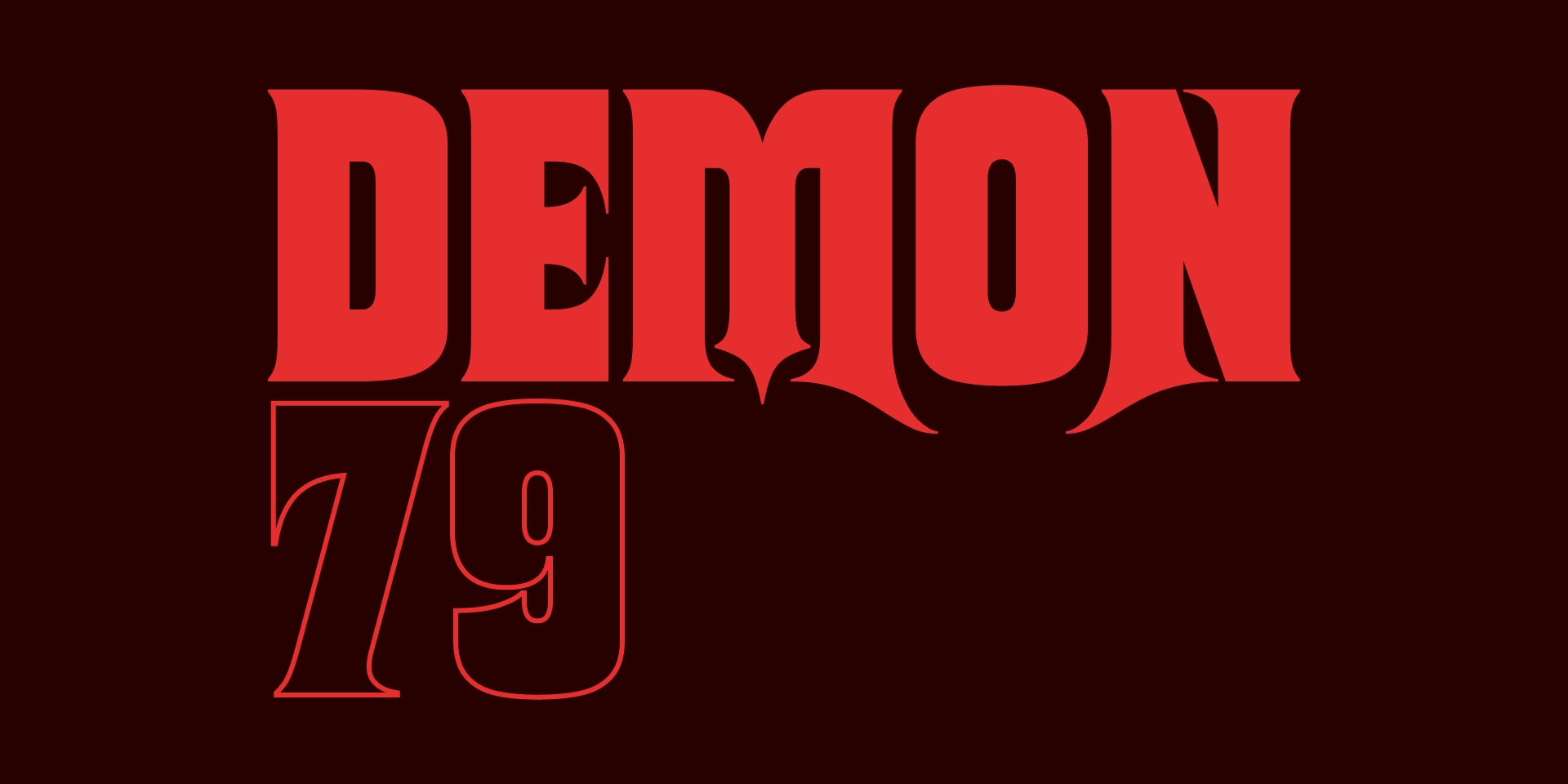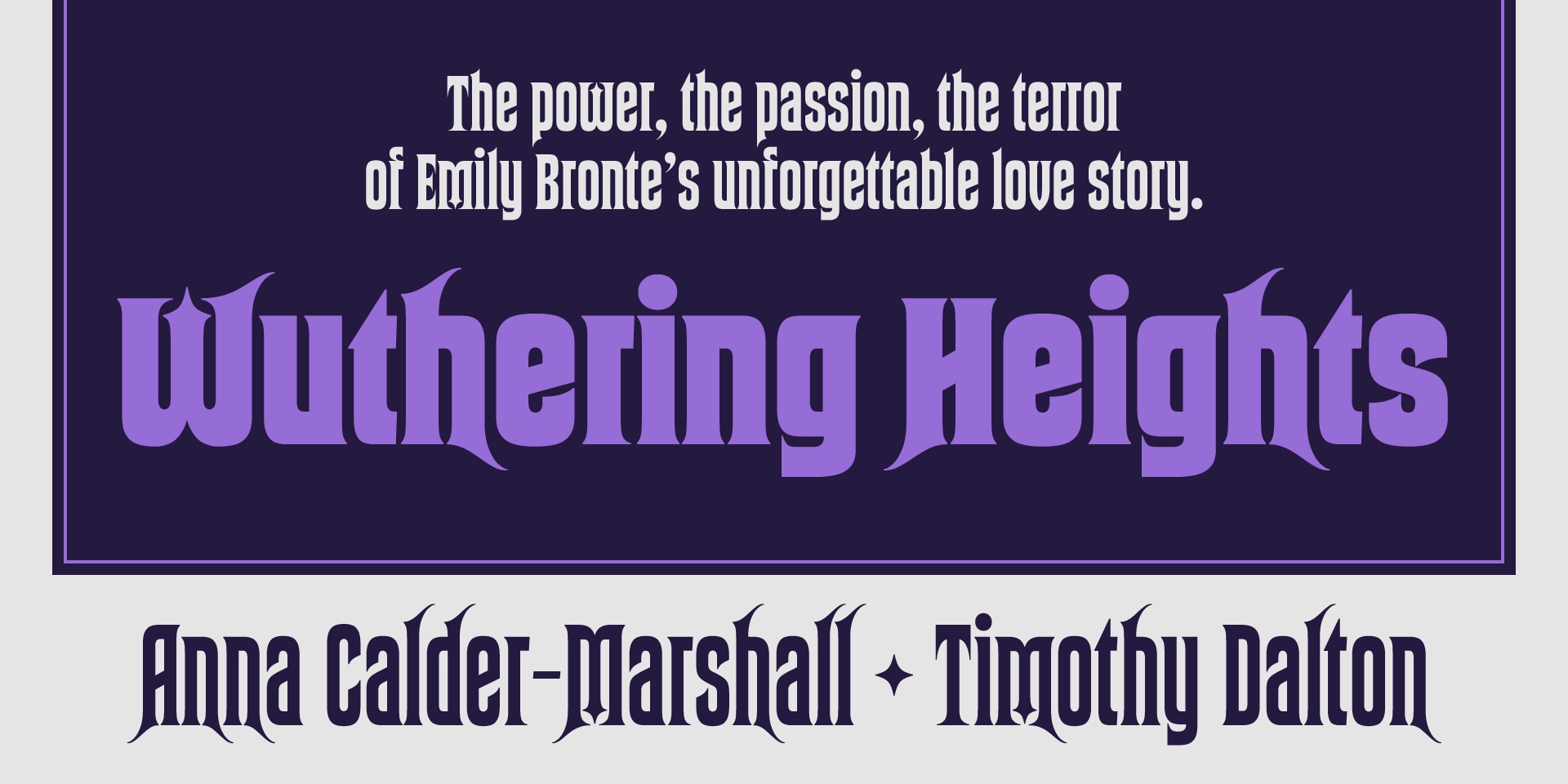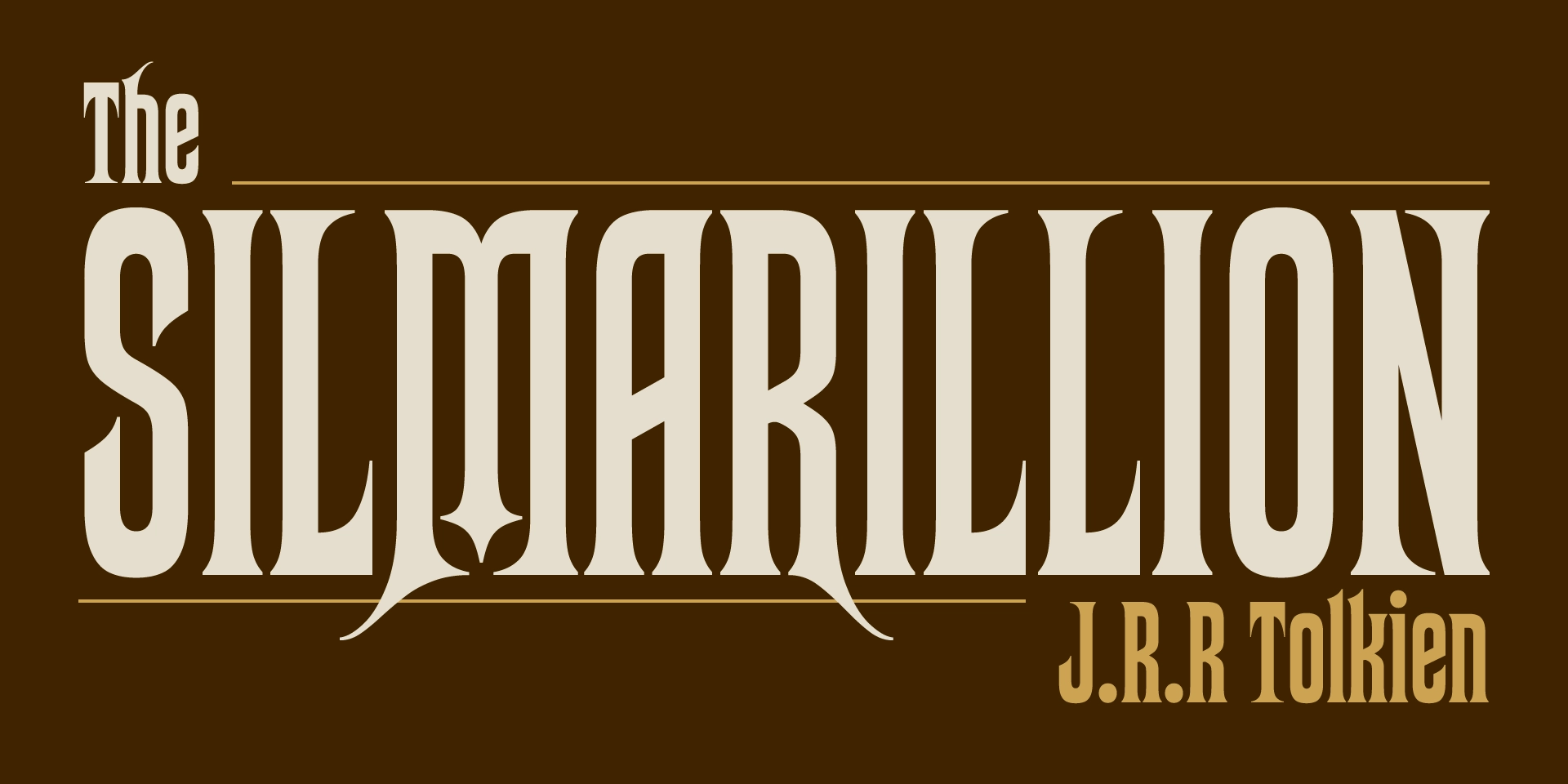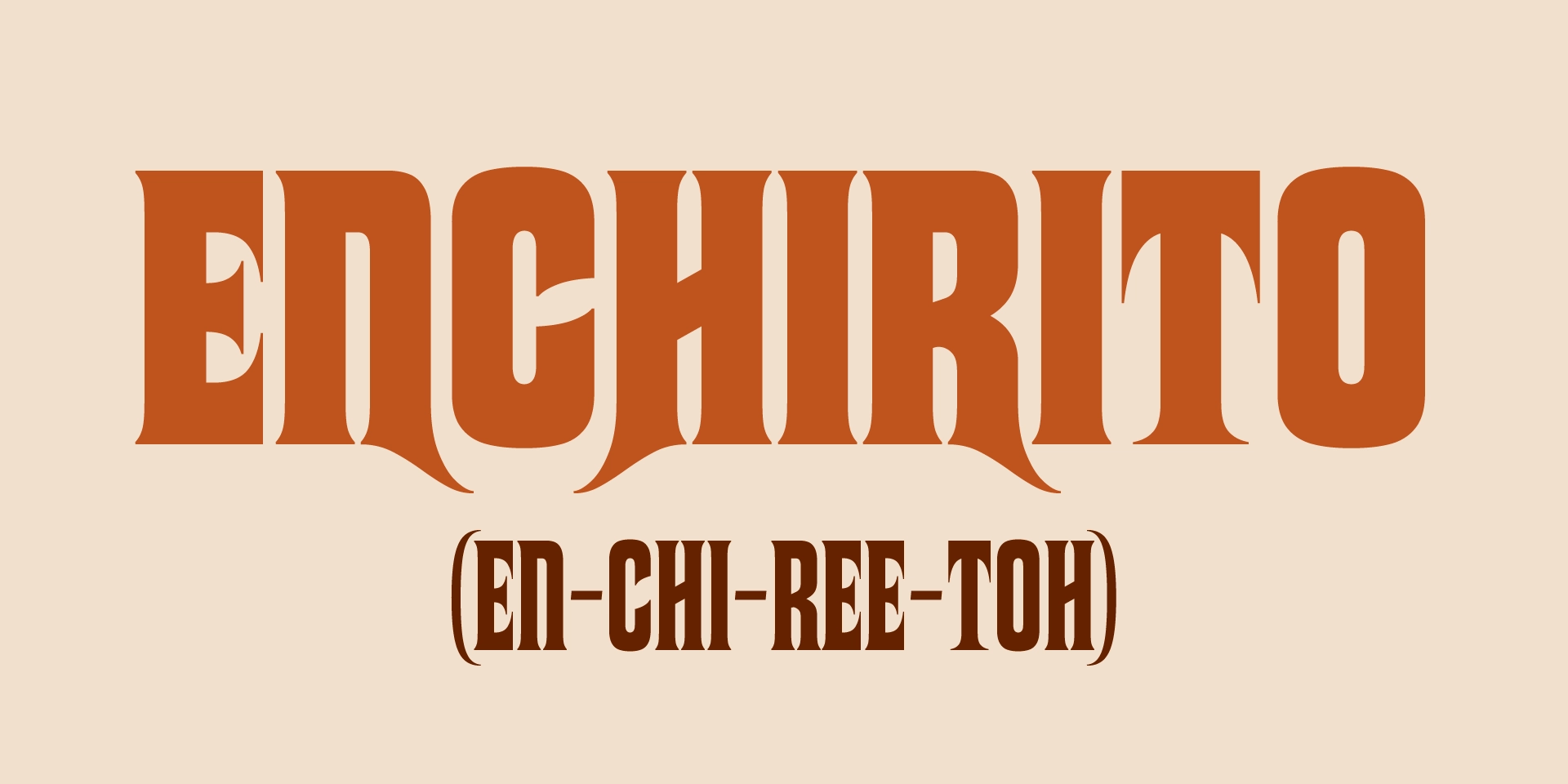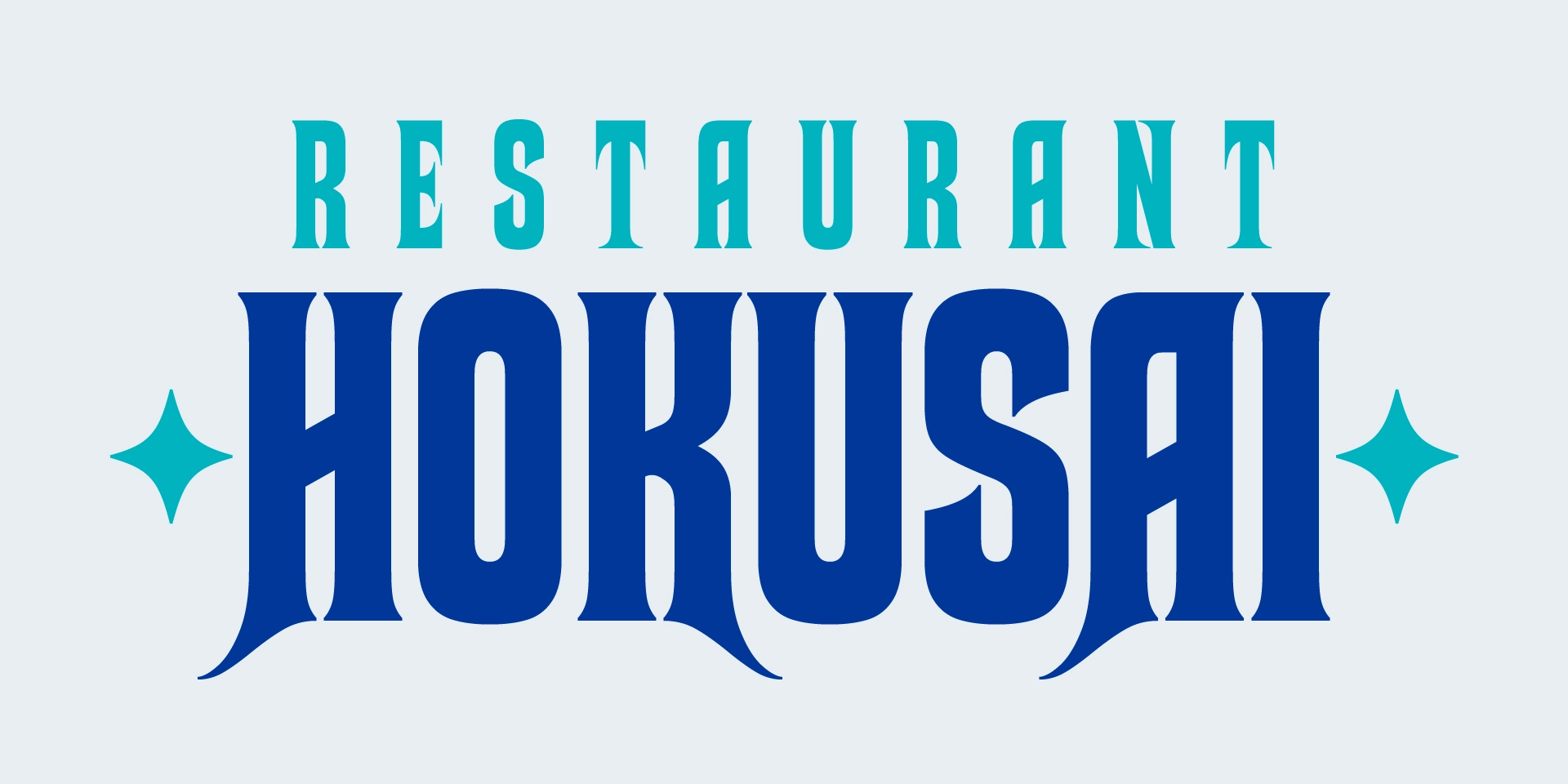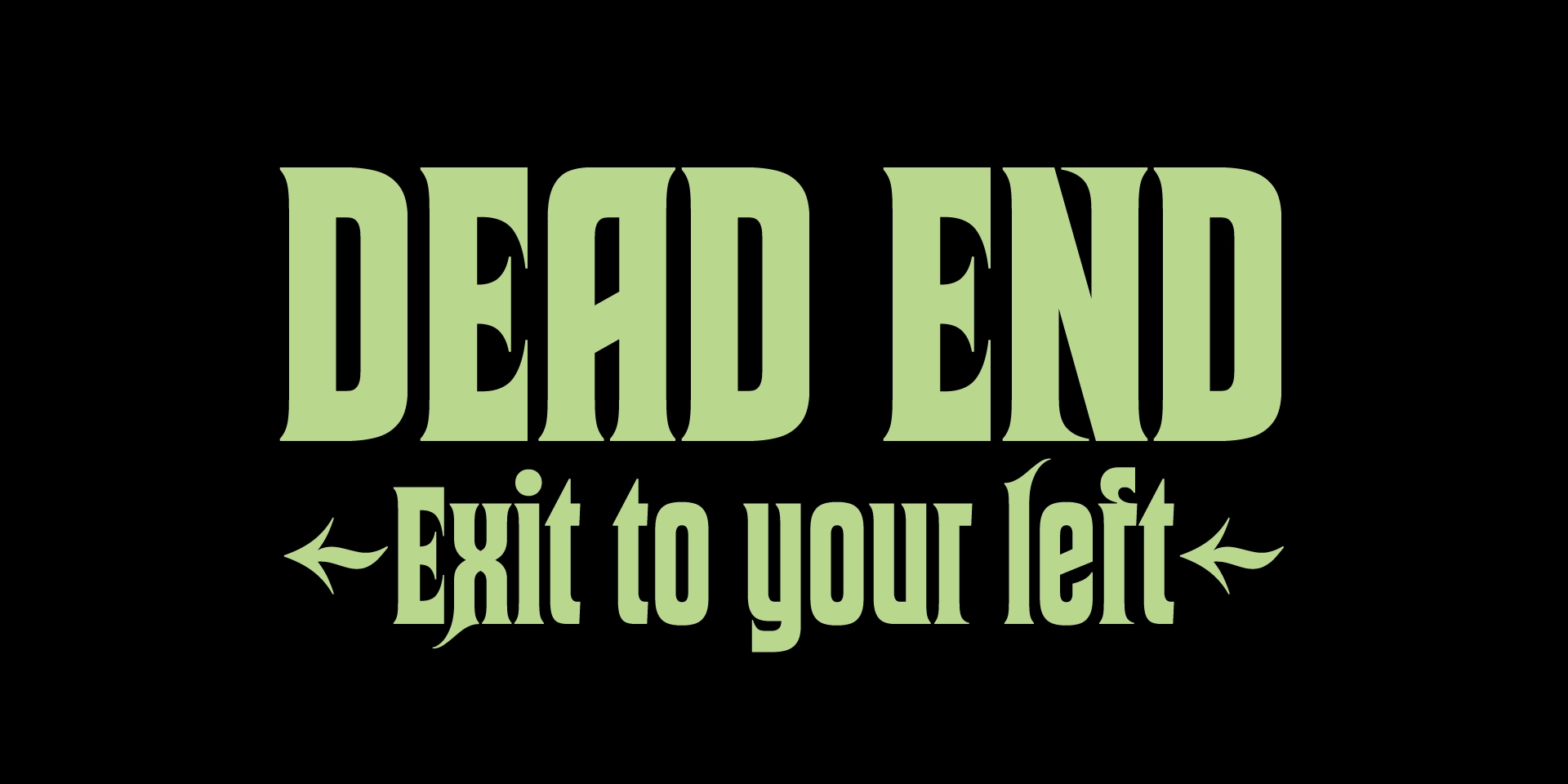
Initial release of Atencio, a variable revival of Rubens.
- Character Set: Basic Latin uppercase and lowercase, numerals, with some punctuation.
- Alternates:OpenType alternates with stylistic sets.
- Family: Four weights with a variable width axis.
- Spacing: Initial pass.
- Kerning: Not yet.